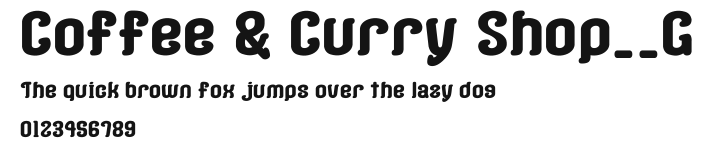
• Font Name: Coffee & Curry Shop__G
About Coffee & Curry Shop__G.ttf
Coffee & Curry Shop__G.ttf is a modern, elegant sans-serif font designed for ultimate readability and visual harmony. Perfect for branding, headlines, web design, and print materials.